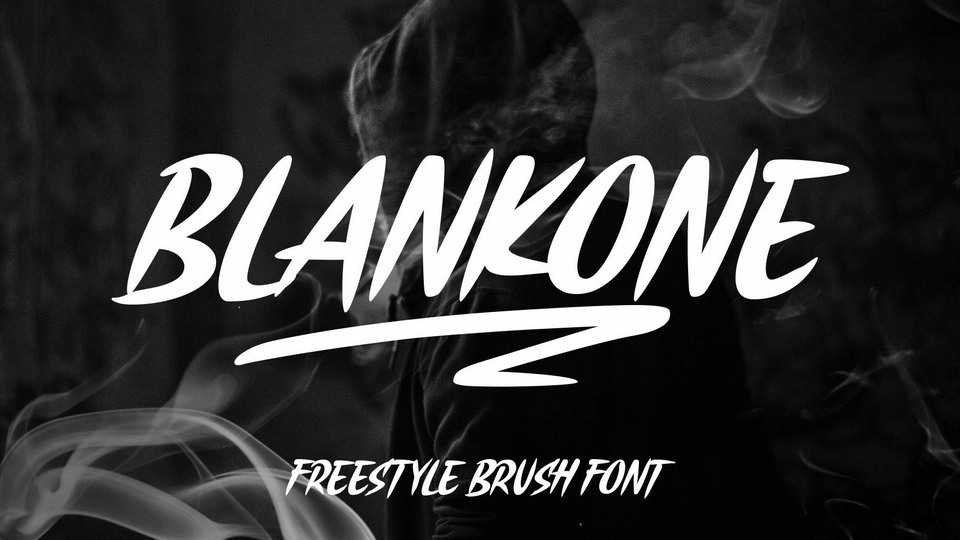
Download Blankone font, a solid freestyle brush typeface, created with expressive brush strokes, keeping the flows to gives the energetic effect. Blankone is perfect for many themes such as urban, thriller, sporty, horror, psychedelic, vibrant, and youth taste.